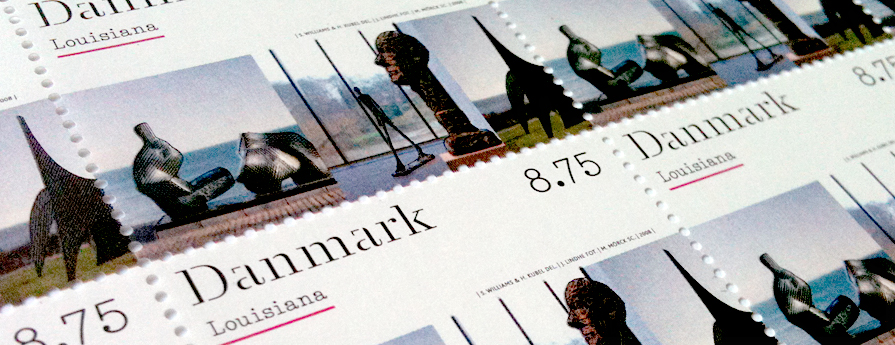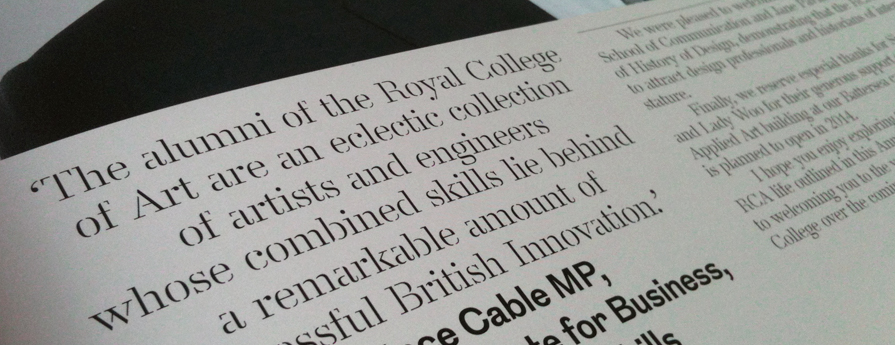
Danmark is an original stencil cut serif font inspired by the unique architectural details and discreet modernism of the buildings at the Louisiana Museum of Modern Art in Denmark.
| Font name: | Danmark |
| Font category: | Serif |
| Styles: | Thin Light Regular Medium Bold |
| Script: | Latin |
| Manufacturer: | A2-TYPE |
| Designer: | Henrik Kubel |
| Year: |
2015 |
| Glyph count: | 529 |